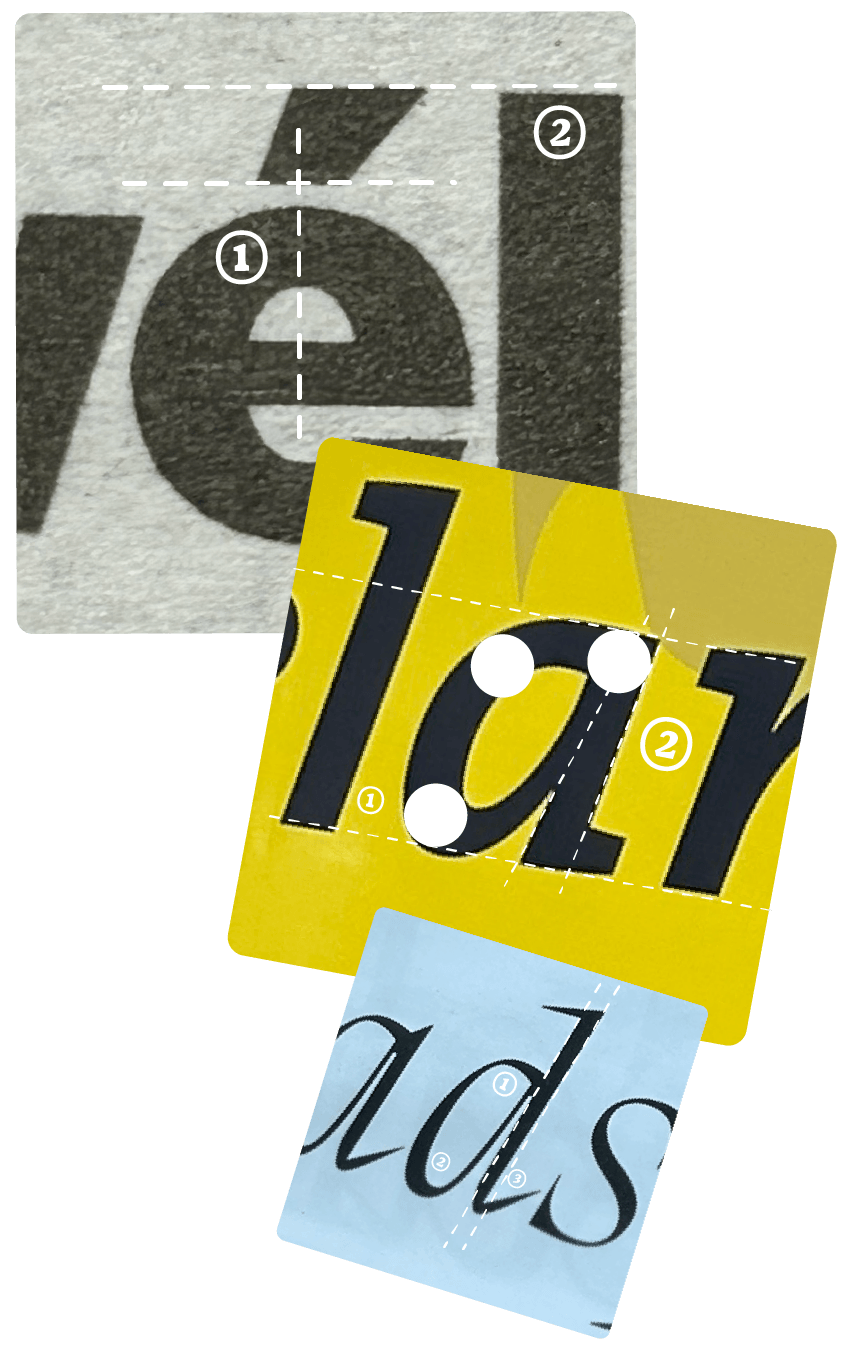
One glyph. One lesson.
What is
The Weekly Glyph?
Every week I share a photo of a typographic detail that caught my eye. Not because it’s famous, not because it’s trendy, but because there’s something to learn from it.
Sometimes it’s a construction decision, sometimes it’s an optical correction, sometimes it’s a tiny detail that most people walk past without noticing.
Each issue takes just a few minutes to read and ends with a practical lesson you can apply to your own work.
One glyph. One lesson.